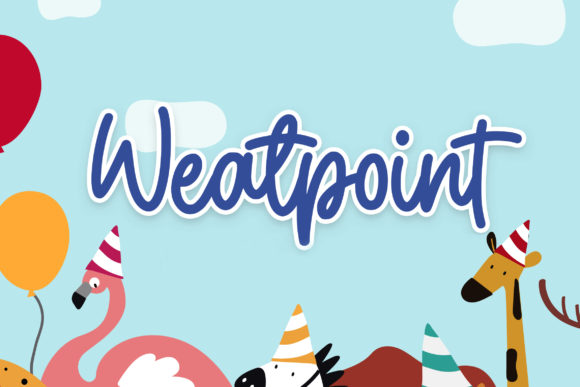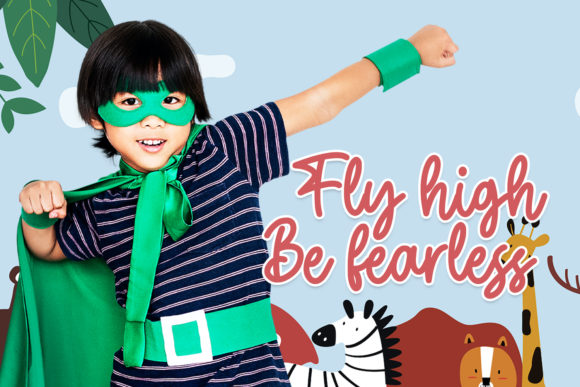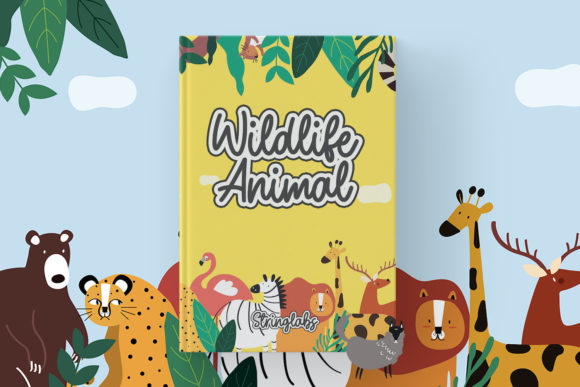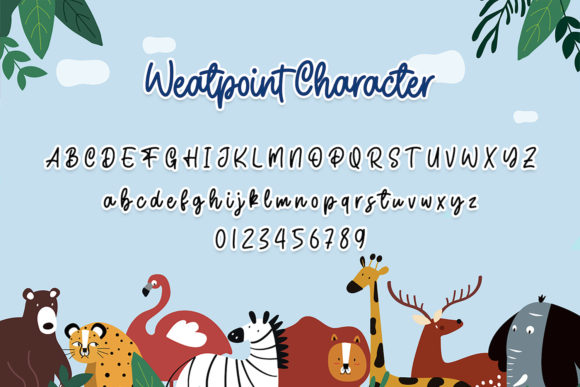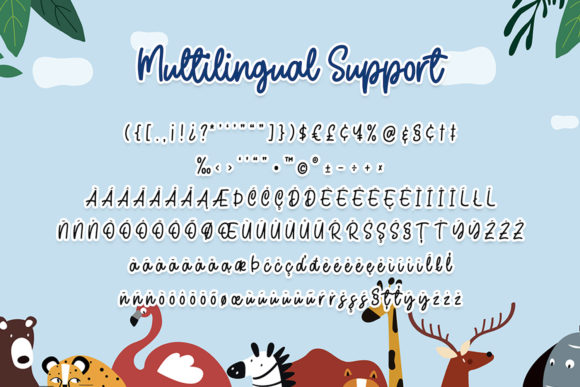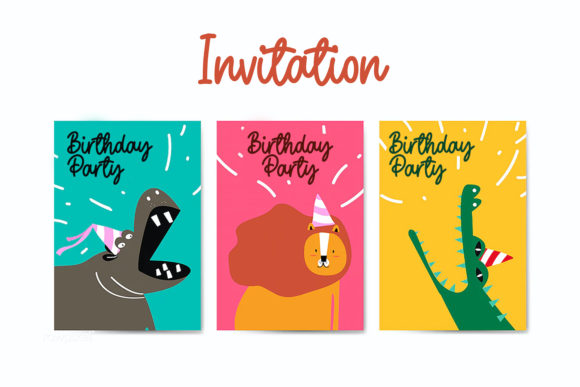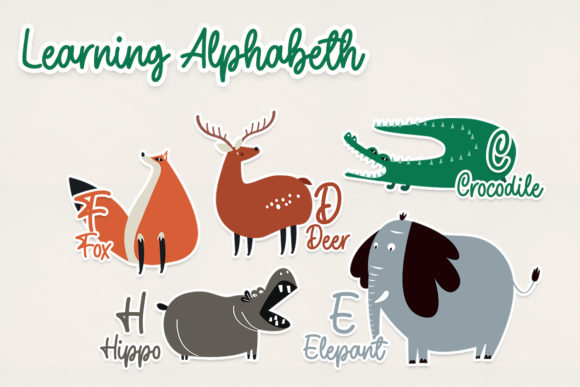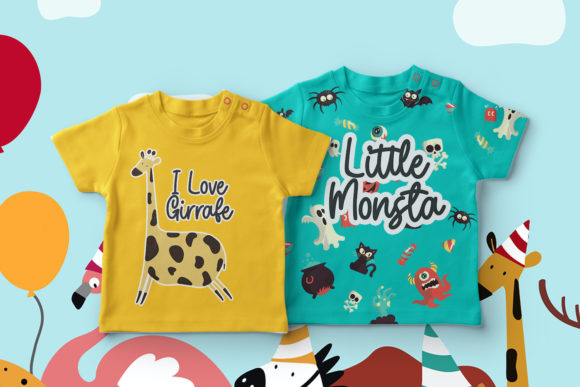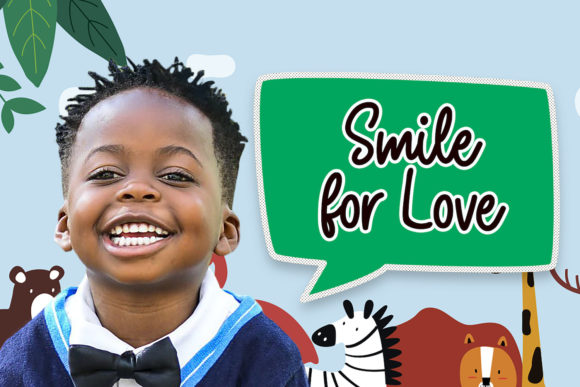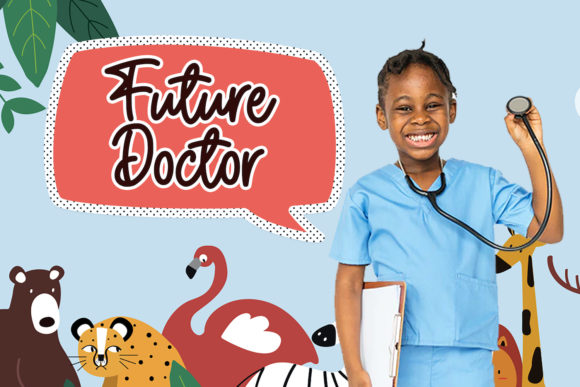
Weatpoint Font
About Weatpoint Font
Weatpoint is a playful and beautiful handwritten font. It’s great for comics, cartoons, birthday invitations, and any creative project that needs a fun look!